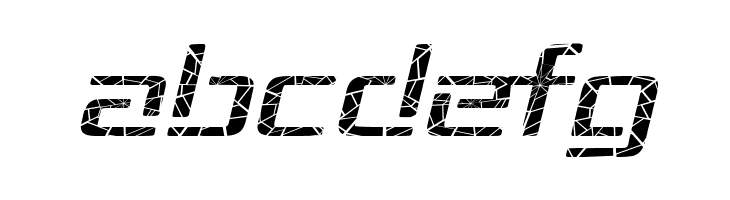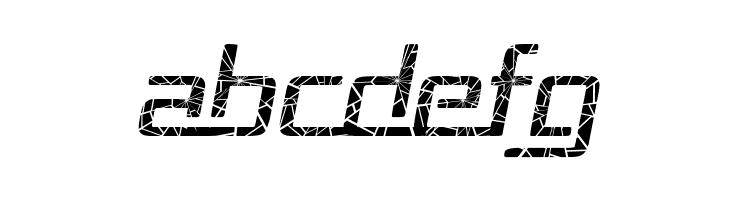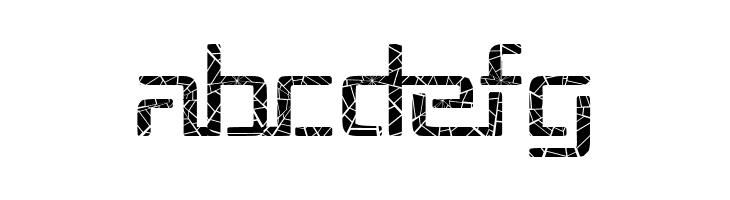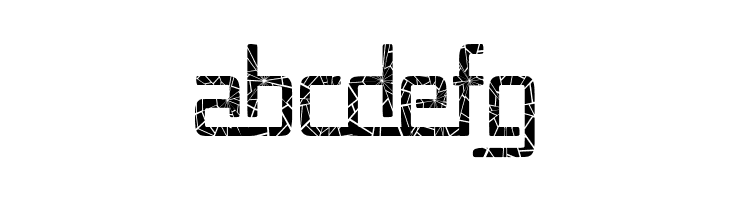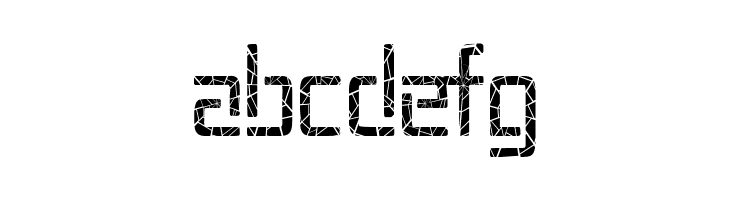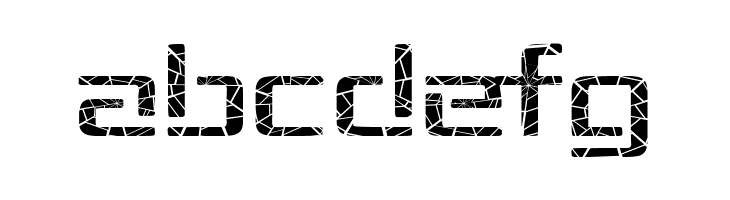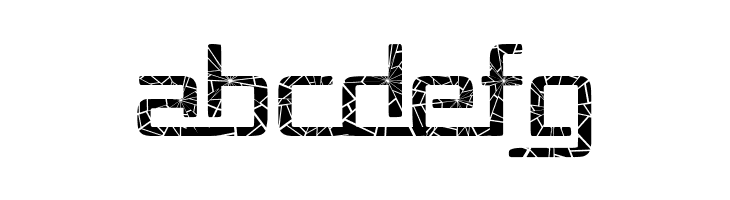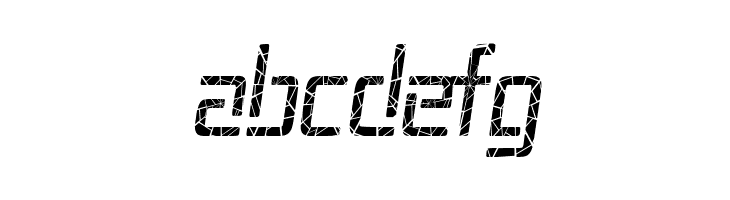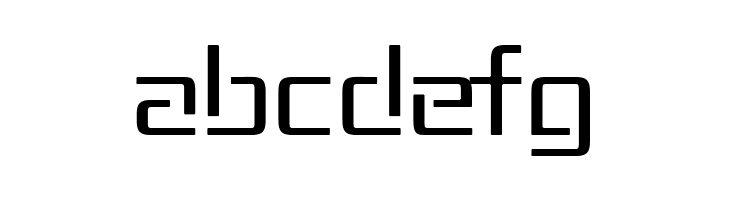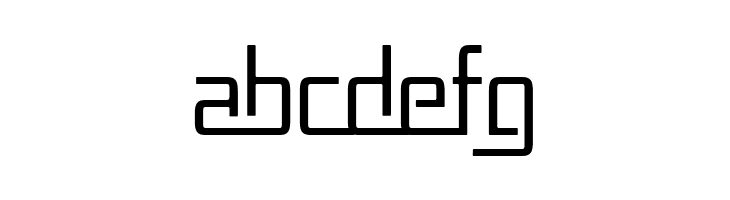
Republika - Light Font
Font by Apostrophic Lab
A modern, geometric font with a clean and structured design.
Republika - Light Italic Font
Font by Apostrophic Lab
A sleek, modern italic font with a geometric structure and balanced spacing.
Republika - Shatter Font
Font by Apostrophic Lab
A bold, shattered-effect font with a geometric, modern style.
Republika - Shatter Italic Font
Font by Apostrophic Lab
A dynamic, shattered italic font with a bold, modern aesthetic.
Republika Cnd - Light Font
Font by Apostrophic Lab
A modern, geometric, and condensed font with a futuristic style.
Republika Cnd - Light Italic Font
Font by Apostrophic Lab
A sleek, modern, condensed italic font with a geometric structure.
Republika Cnd - Shatter Font
Font by Apostrophic Lab
A bold, shattered glass effect font with a geometric and edgy style.
Republika Cnd - Shatter Italic Font
Font by Apostrophic Lab
A bold, italicized font with a shattered, geometric design for a modern, edgy look.
Republika Exp - Light Font
Font by Apostrophic Lab
A modern, geometric font with a futuristic and minimalistic design.
Republika Exp - Light Italic Font
Font by Apostrophic Lab
A sleek, modern italic font with a futuristic and dynamic design.
Republika Exp - Shatter Font
Font by Apostrophic Lab
A modern font with a shattered, geometric design for a bold, dynamic look.
Republika Exp - Shatter Italic Font